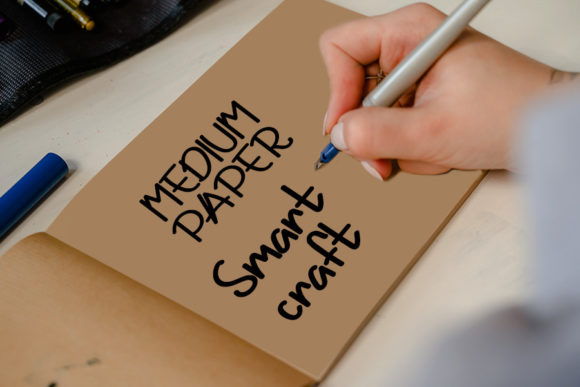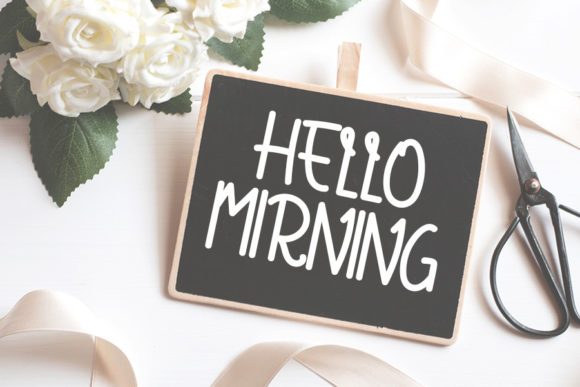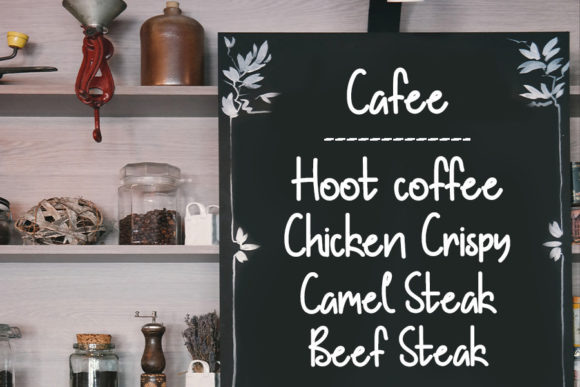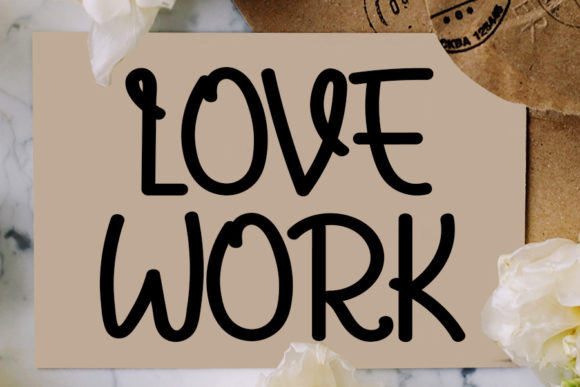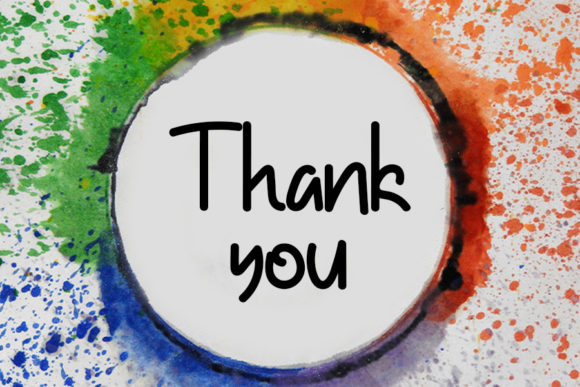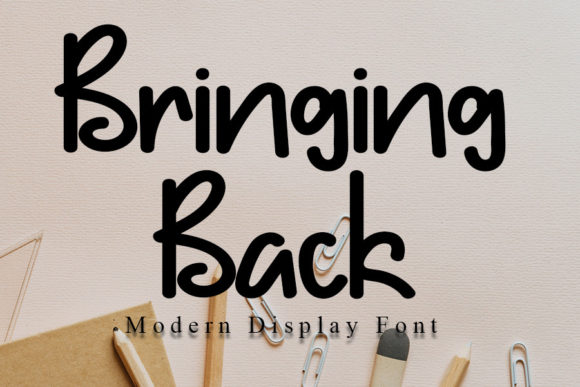
Bringing Back Font: A Whimsical Display Font to Fall in Love With
I’ll never forget the moment I stumbled upon the Bringing Back font. I was working on a project for a client who wanted a playful, eye-catching design that would make their brand stand out. I had spent hours scouring the internet for the perfect font, but nothing seemed quite right. That was until I discovered Bringing Back – a whimsical display font that instantly captured my heart. In this article, I’ll share my experience with this incredible font, its features, and how to make the most of it in your designs.
My Love Affair with Bringing Back
As soon as I opened Bringing Back in my design software, I knew I had found something special. The fun characters, the incredibly versatile style, and the sheer playfulness of it all – it was love at first sight! Here are some things I adore about this font:
• ✨ Unique character set: Bringing Back boasts an impressive range of characters that will add a touch of whimsy to any design.
• ✅ Versatility: This font is perfect for a wide range of projects, from branding and advertising to packaging and more.
• 💫 OpenType features: Bringing Back supports OpenType features, allowing you to access a range of glyphs and stylistic alternates to take your designs to the next level.
While I’m absolutely smitten with Bringing Back, no font is perfect. Here are a few things to keep in mind:
• 🤔 Limited use in body text: While Bringing Back is amazing for headlines and titles, it’s not the best choice for body text. It’s a display font, after all!
• ⚠️ Glyph compatibility: Some glyphs might not work seamlessly across all platforms or software. Make sure to test them before finalizing your design.
The Story Behind Bringing Back
Bringing Back was designed with one goal in mind: to create a font that would bring joy and playfulness to designers and their projects. Inspired by vintage typography and a passion for whimsy, the designer crafted a font that’s both unique and versatile. Whether you’re working on a branding project or just want to add some personality to your designs, Bringing Back is the perfect choice.
What type of projects is Bringing Back best suited for? Bringing Back is perfect for branding, advertising, packaging, and any project that requires a playful, eye-catching font.
Can I use Bringing Back for body text? While Bringing Back is amazing for headlines and titles, it’s not the best choice for body text. It’s a display font, after all!
Does Bringing Back support OpenType features? Yes, Bringing Back supports OpenType features, allowing you to access a range of glyphs and stylistic alternates to take your designs to the next level.
With Bringing Back, you’ll never have to worry about your designs looking dull or uninspired again. Its unique character set, versatility, and OpenType features make it the perfect addition to any design project. So go ahead, fall in love with Bringing Back, and create spectacular designs that will leave a lasting impression!